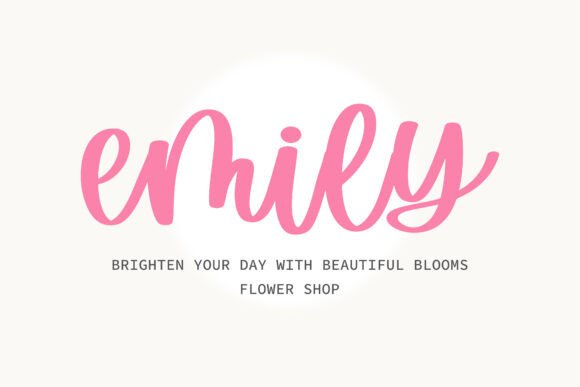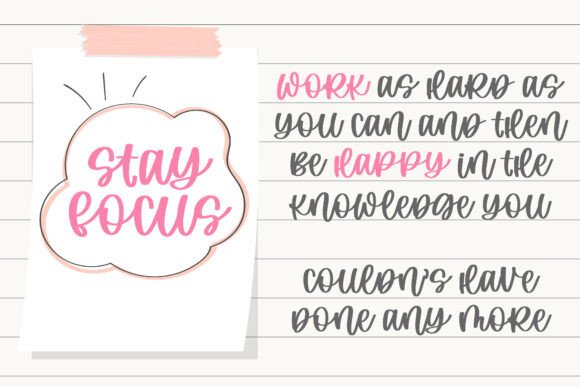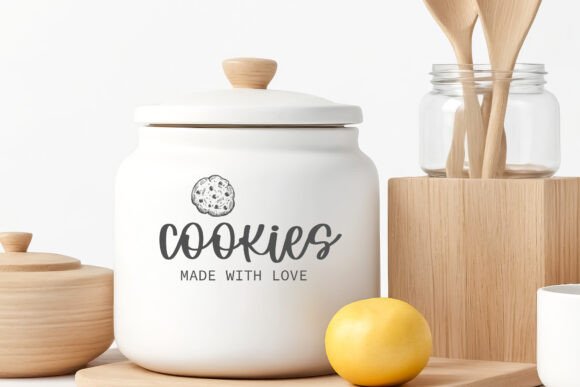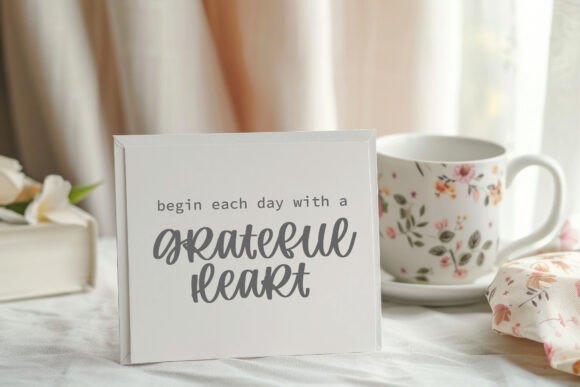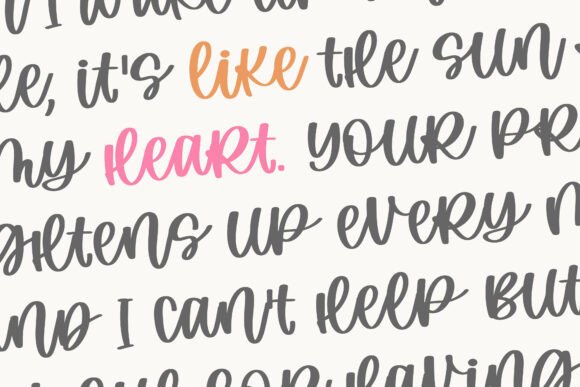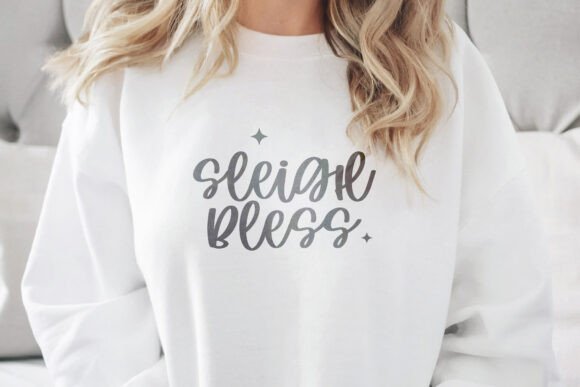
Introducing Charmful Font: The Perfect Handwritten Font for Chalkboard Quotes and Teaching Materials
Are you a designer, crafter, or educator looking for a font that can add a personal and realistic touch to your designs? Look no further than Charmful Font, a cool, friendly, and informal handwritten font that’s perfect for chalkboard quotes, teaching materials, and more. In this article, we’ll explore the features and benefits of Charmful Font, and show you how it can elevate your designs to the next level.
What is Charmful Font?
Charmful Font is a unique and authentic handwritten font that’s designed to mimic the look and feel of chalkboard writing. Its informal and friendly style makes it perfect for a wide range of design projects, from educational materials and chalkboard quotes to craft projects and DIY tutorials. With its authentic look and feel, Charmful Font adds a personal touch to your designs, making them more relatable and engaging.
Key Features of Charmful Font
- Handwritten style: Charmful Font is a genuine handwritten font, giving your designs a personal and realistic touch.
- Cool and friendly: The font’s informal and friendly style makes it perfect for educational materials, chalkboard quotes, and craft projects.
- Chalkboard-inspired: The font’s design is inspired by traditional chalkboard writing, giving your designs a classic and timeless look.
- Easy to read: Despite its handwritten style, Charmful Font is easy to read, making it perfect for teaching materials and educational projects.
- Versatile: Charmful Font can be used for a wide range of design projects, from digital designs to print materials.
Benefits of Using Charmful Font
So why choose Charmful Font for your design projects? Here are just a few benefits of using this unique and versatile font:
- Adds a personal touch: Charmful Font’s handwritten style and authentic look and feel add a personal touch to your designs, making them more relatable and engaging.
- Perfect for educational projects: The font’s cool and friendly style makes it perfect for educational materials, such as chalkboard quotes, teaching materials, and worksheets.
- Unique and distinctive: Charmful Font’s unique style and design make it stand out from other fonts, giving your designs a distinctive and memorable look.
How to Use Charmful Font in Your Design Projects
Using Charmful Font in your design projects is easy. Here are a few tips to get you started:
- Pair it with other fonts: Charmful Font pairs well with other fonts, such as sans-serif fonts and script fonts. Experiment with different font combinations to find the perfect look for your design.
- Use it for headings and titles: Charmful Font’s bold and expressive style makes it perfect for headings and titles. Use it to add emphasis and create visual interest in your designs.
- Add some texture: To give your designs an extra layer of texture and interest, try adding some texture to your Charmful Font text. You can use a texture overlay or add a subtle background image to create a more dynamic look.